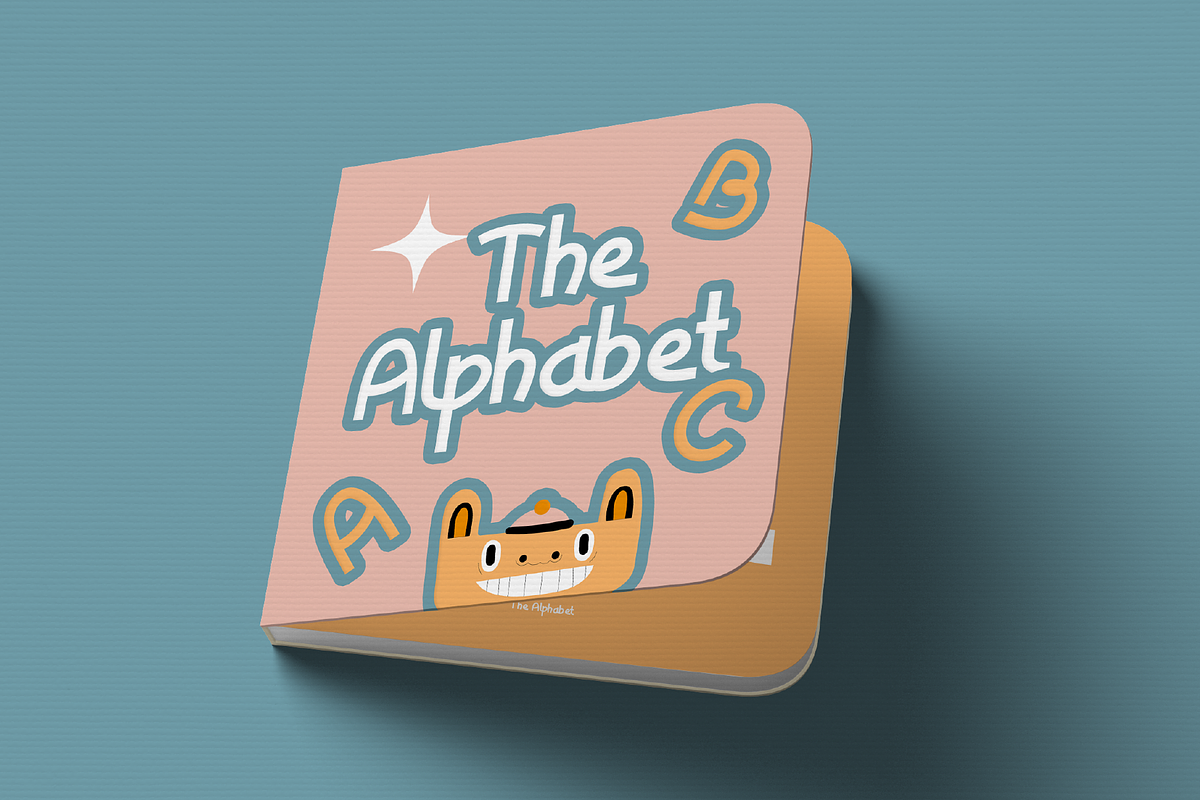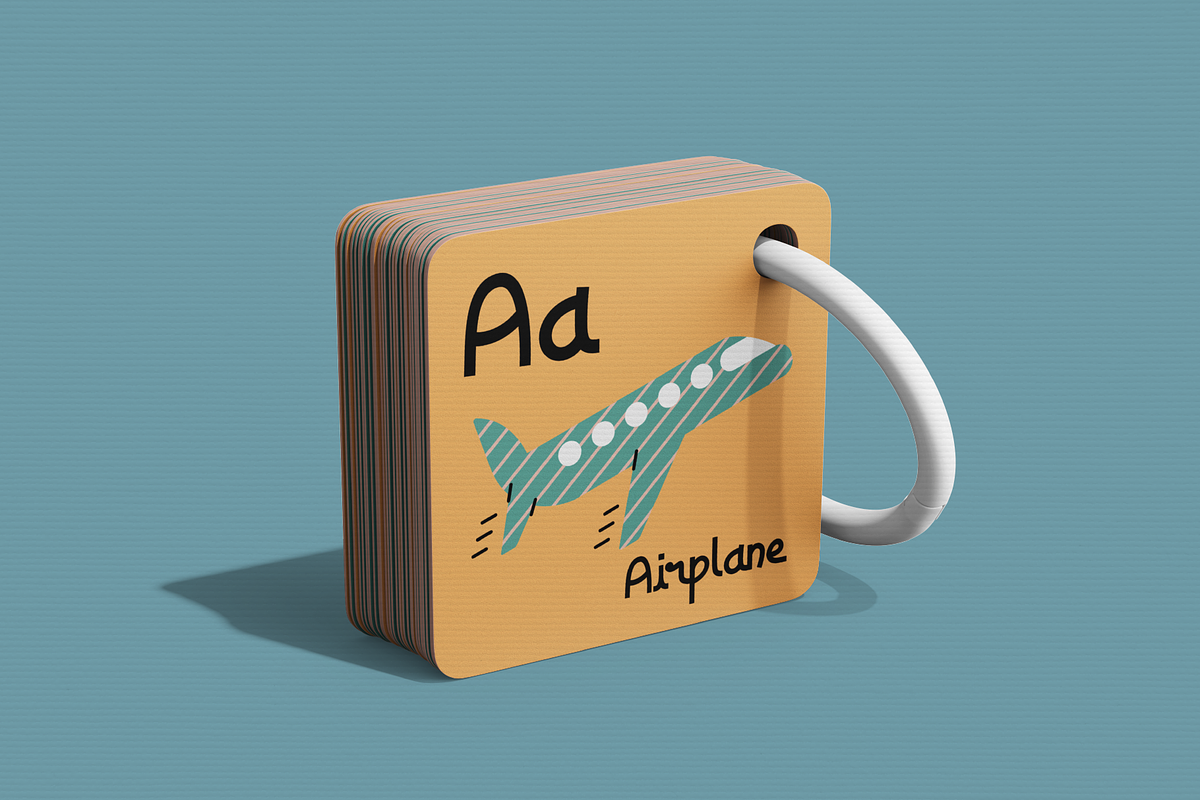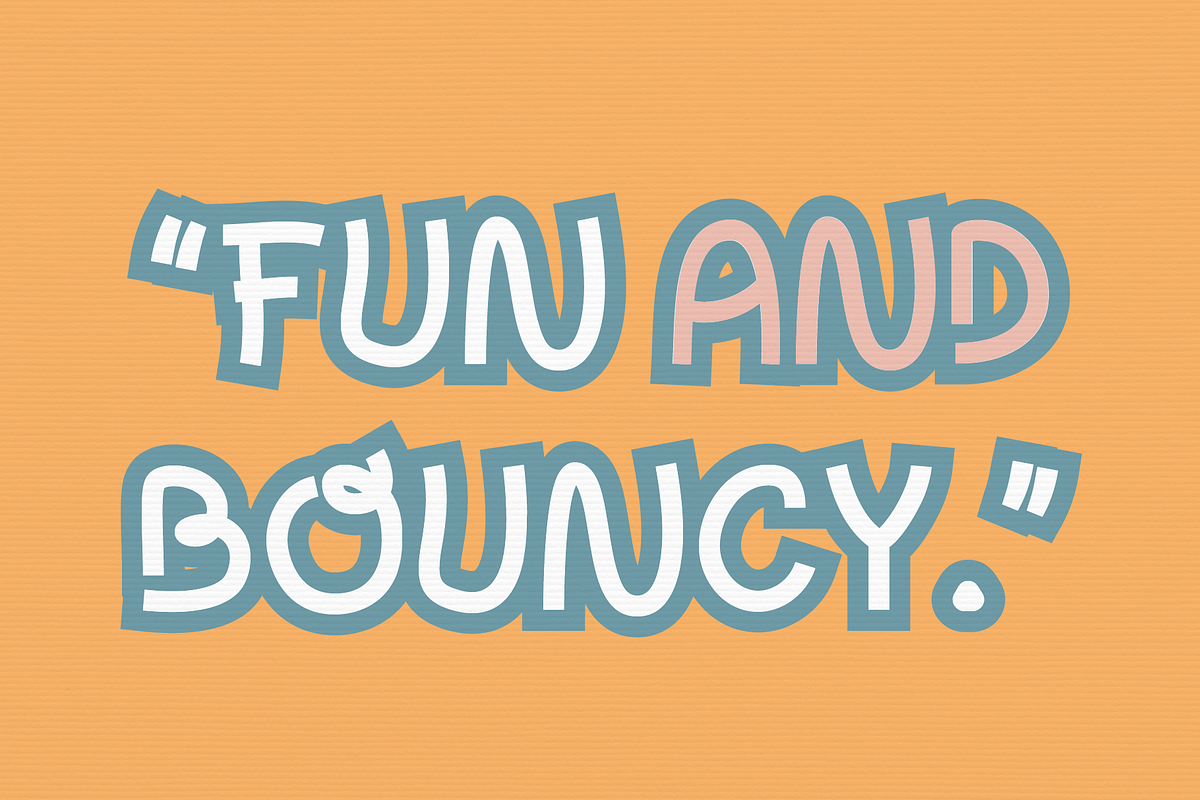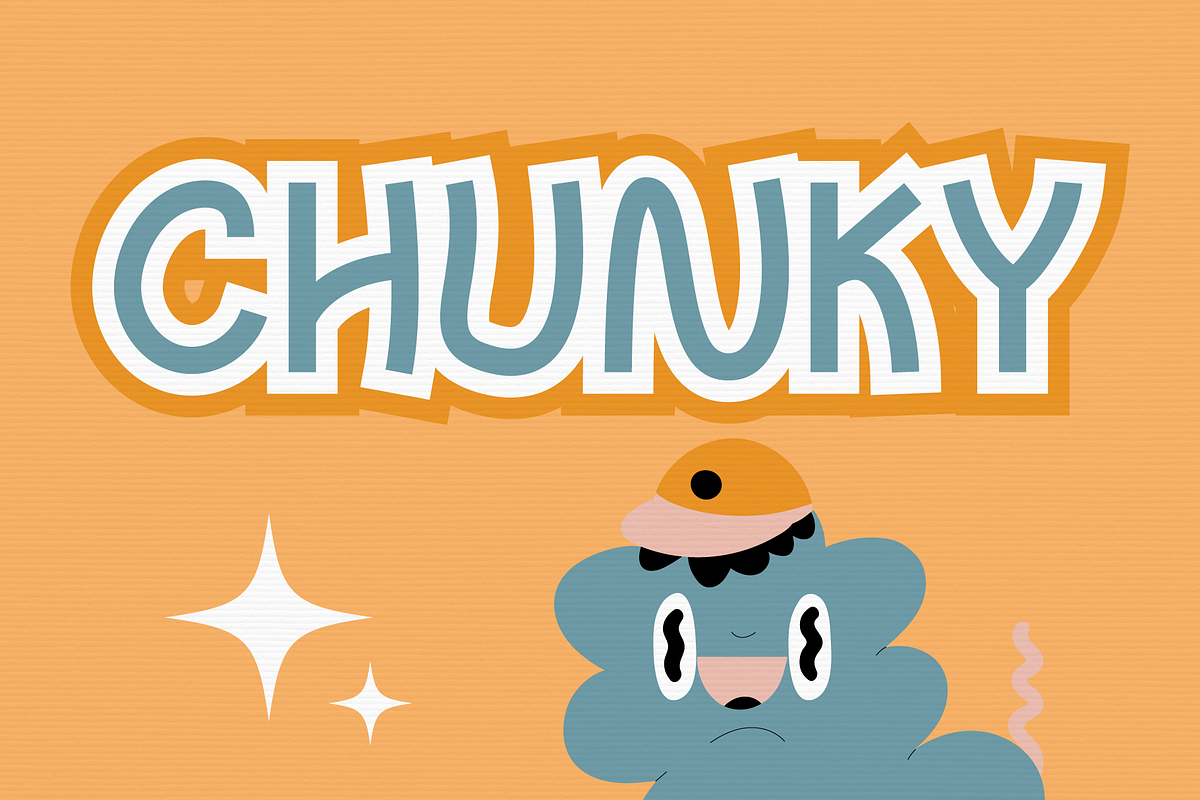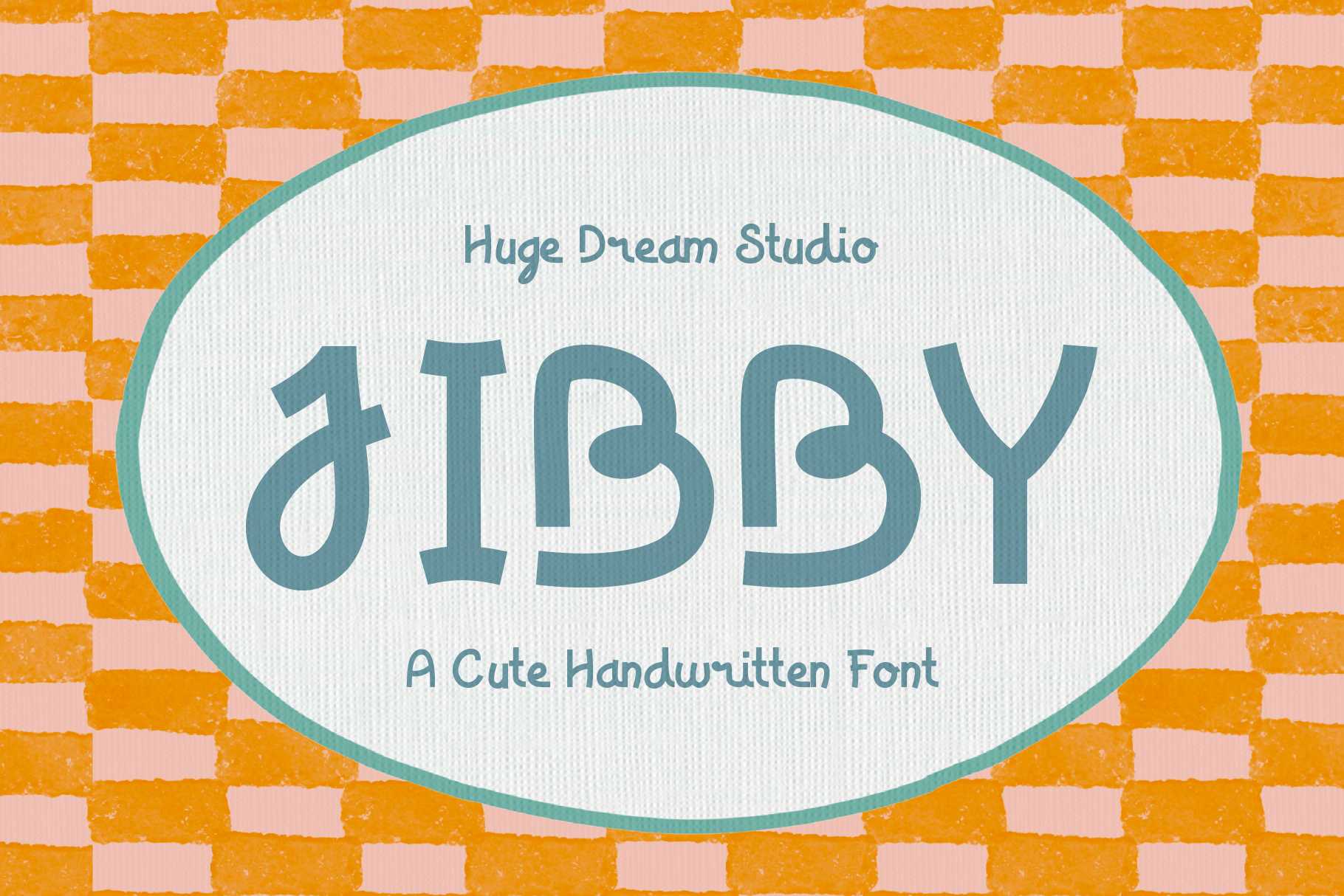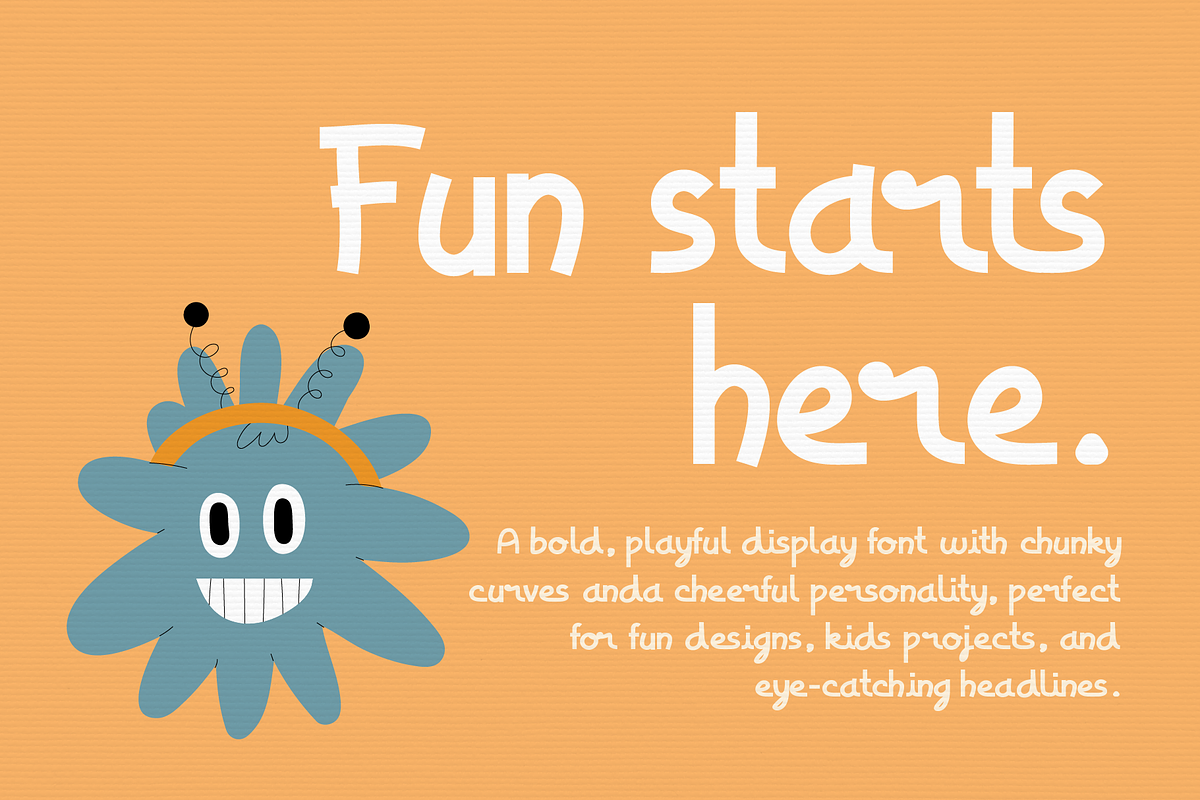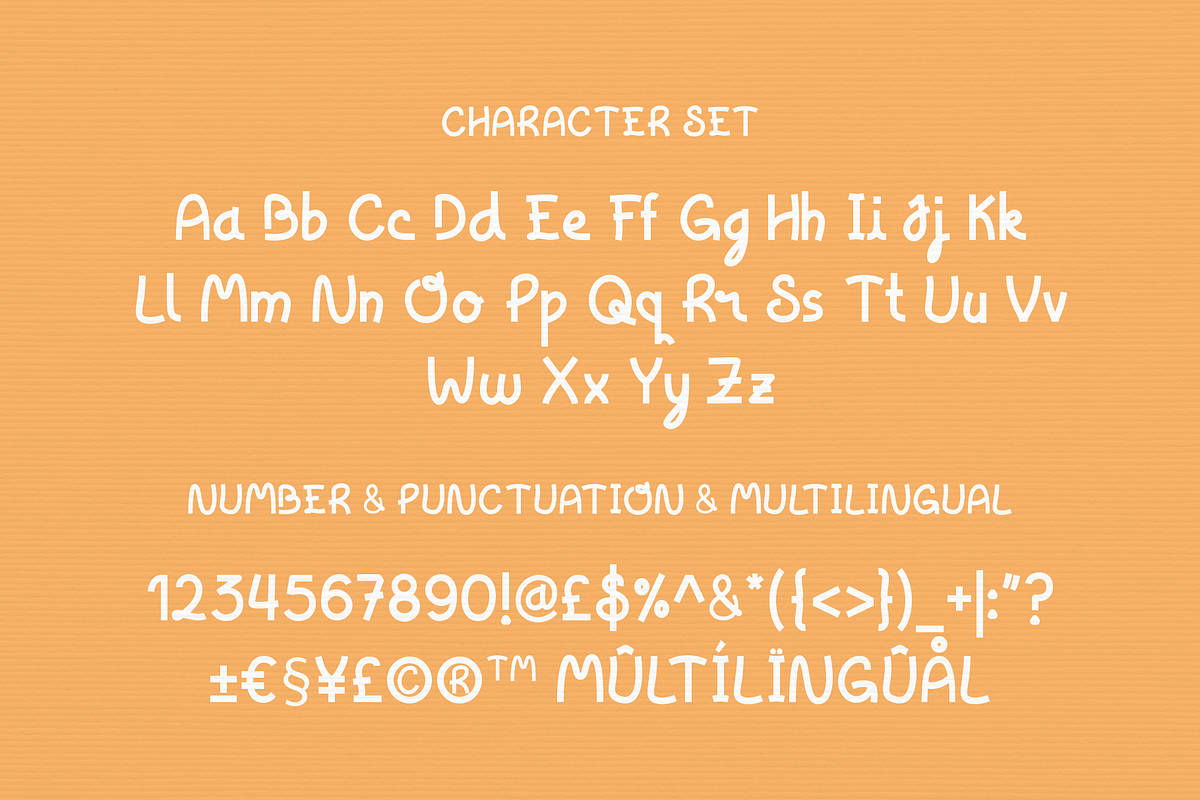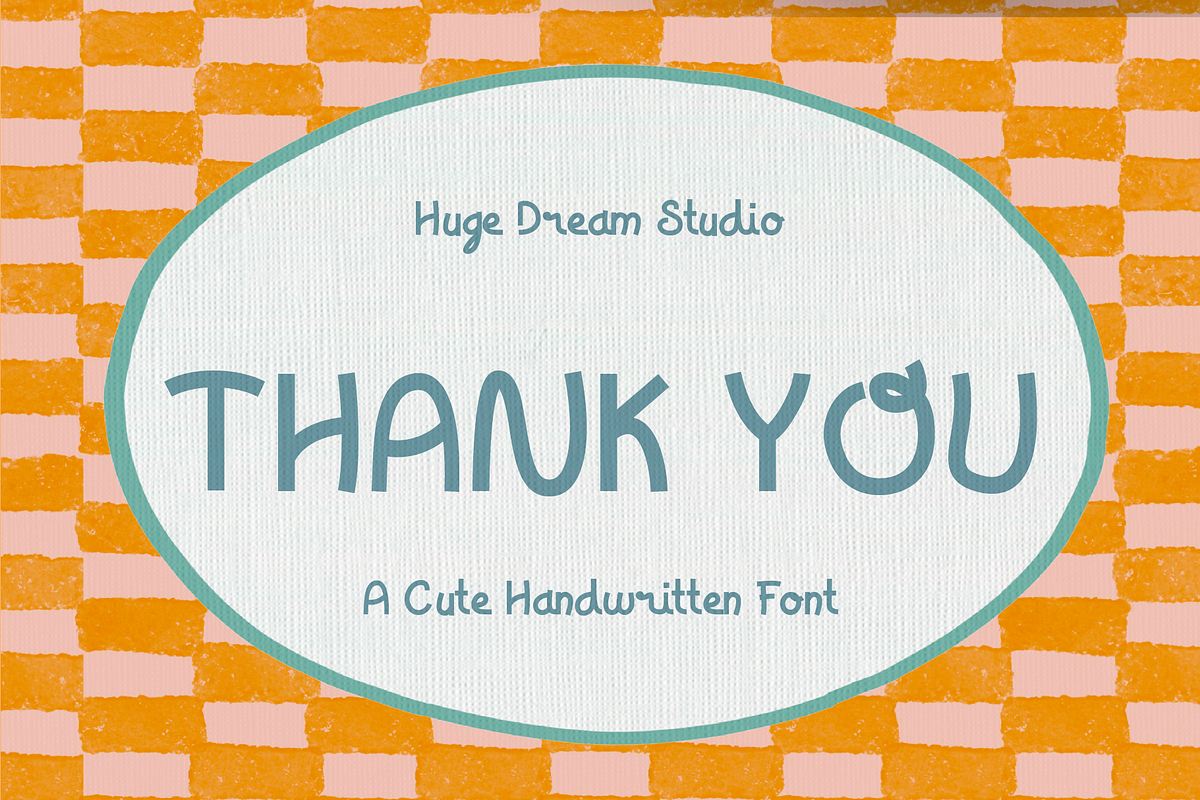
Jibby – A Cute Handwritten Font
Jibby – A Cute Handwritten Font is a fun and bubbly handwritten typeface filled with charm and personality. Its rounded shapes and playful strokes give it a sweet, cheerful feel that instantly makes any design more friendly and approachable.
Perfect for kids-themed projects, stickers, planners, quotes, social media, packaging, and creative branding, Jibby adds a joyful handmade touch to your text. If you’re looking for a font that feels cute, lighthearted, and full of character, Jibby is the perfect choice.
Jibby – A Cute Handwritten Font features:
- Punctuation & Numbers